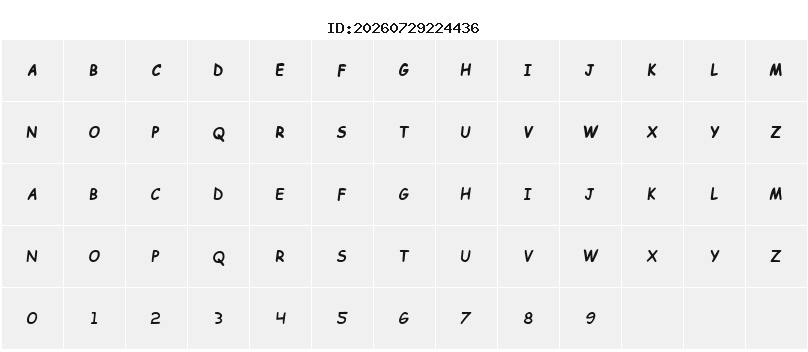
Kid Cobalt Preview
• Font Name: Kid Cobalt
• Full Font Name: Kid Cobalt
About Kid Cobalt.ttf
Kid Cobalt.ttf is a modern, elegant sans-serif font designed for ultimate readability and visual harmony. Perfect for branding, headlines, web design, and print materials.